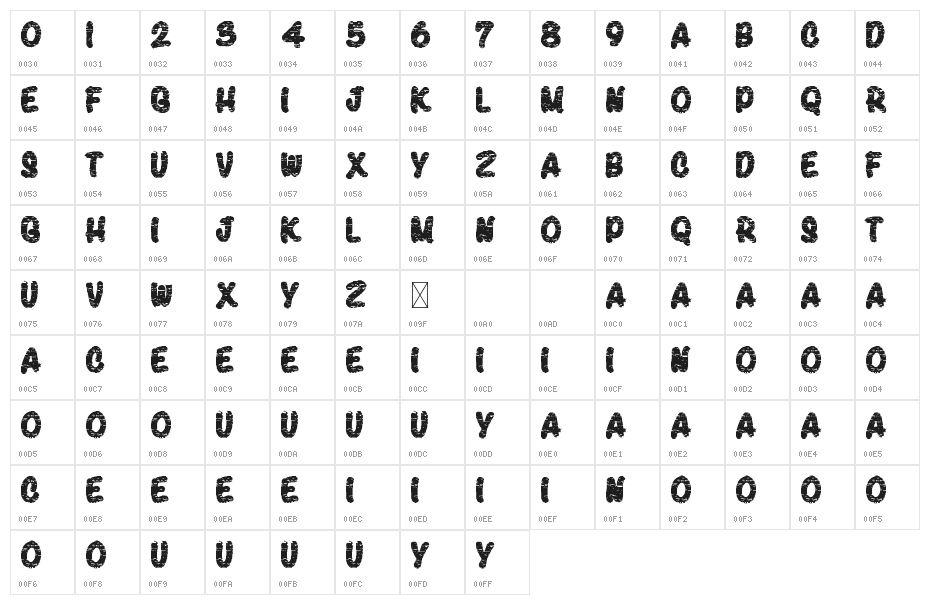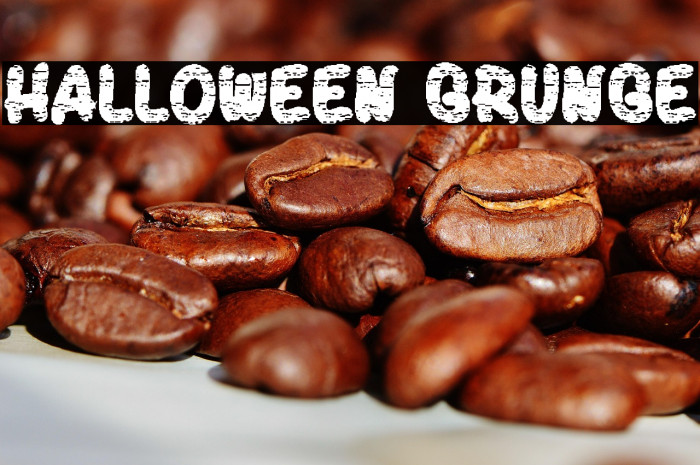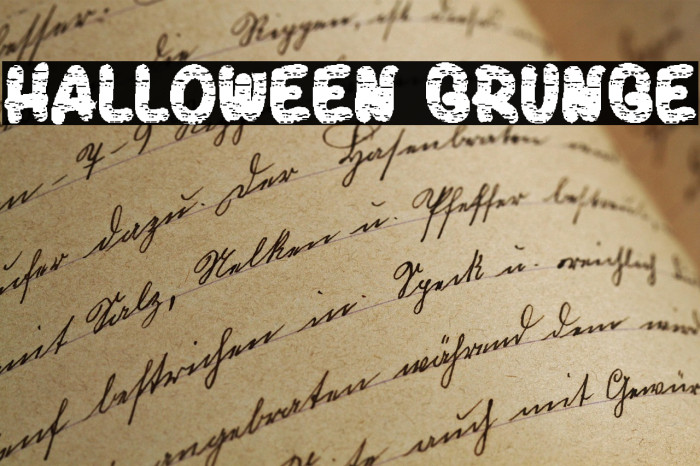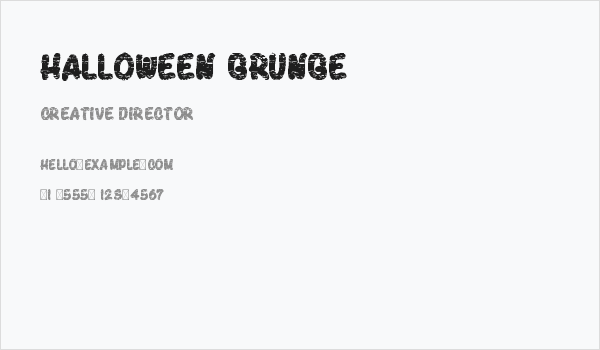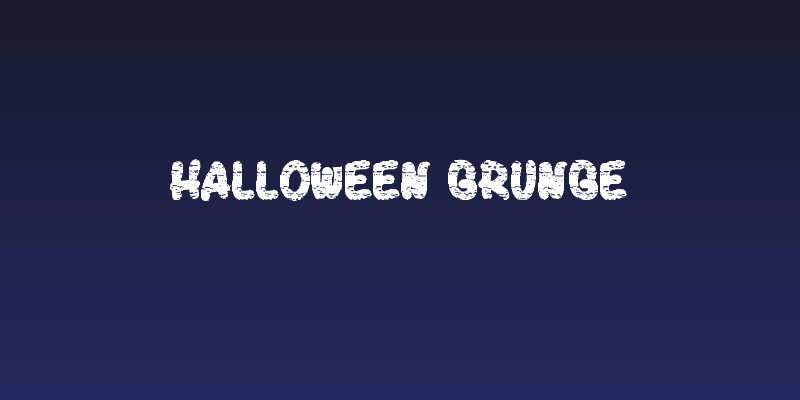
Halloween Grunge Font
Halloween Grunge Description
This font features a bold, distressed style with a grunge texture that gives it a worn, rugged appearance. The characters are thick and rounded, with irregular edges and a rough, textured surface that creates a sense of decay and age. This style is reminiscent of vintage horror themes, making it ideal for Halloween or spooky designs. The uppercase and lowercase letters maintain consistent thickness, while the numbers and special characters follow the same distressed aesthetic, ensuring a cohesive look across all elements.
| Proposed Projects | Ideal for Halloween-themed posters, horror movie titles, haunted house flyers, and edgy graphic designs. |